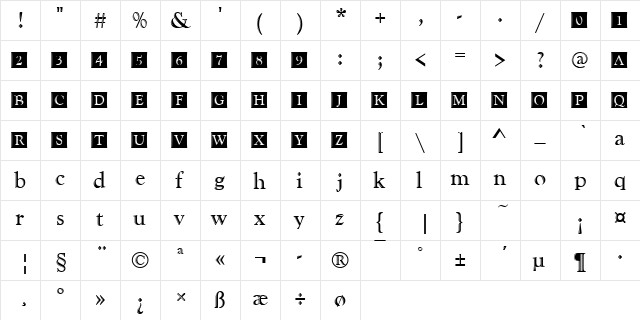
GoudyHanIniD Regular
Design Context for GoudyHanIniD Typeface
GoudyHanIniD takes a measured approach to typography — its balanced proportions and neutral character make it a reliable workhorse for both digital and print work.